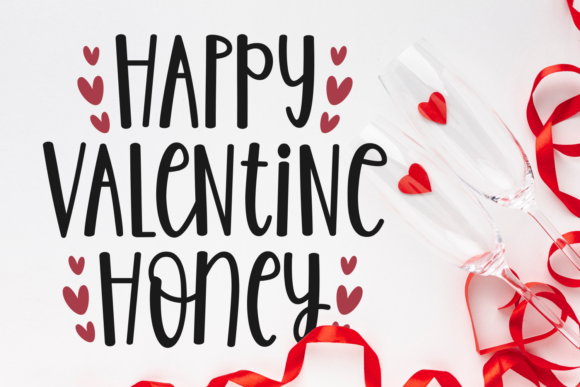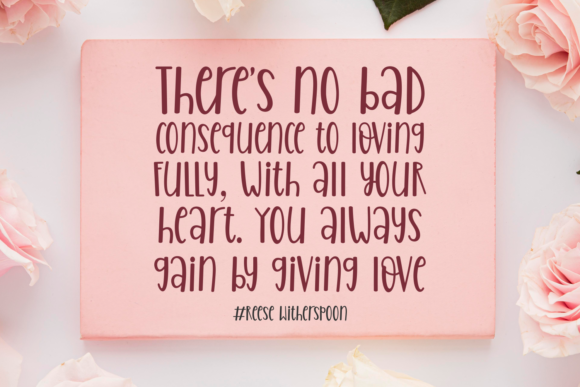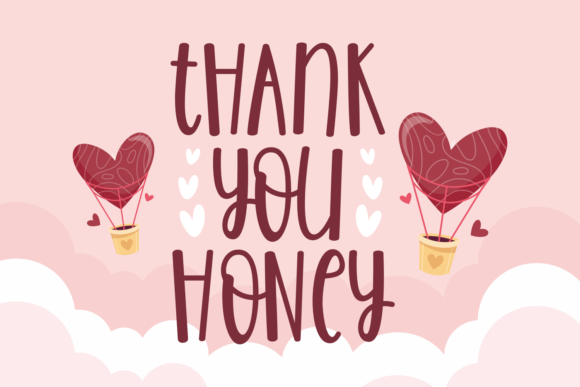
Introduction to Lovely Jessy Font
Lovely Jessy is a playful and chic display font.
Lovely Jessy Font offers exceptional quality and versatility, making it a valuable addition to your design toolkit. Whether you’re creating for personal projects or commercial use, Lovely Jessy Font delivers professional results.